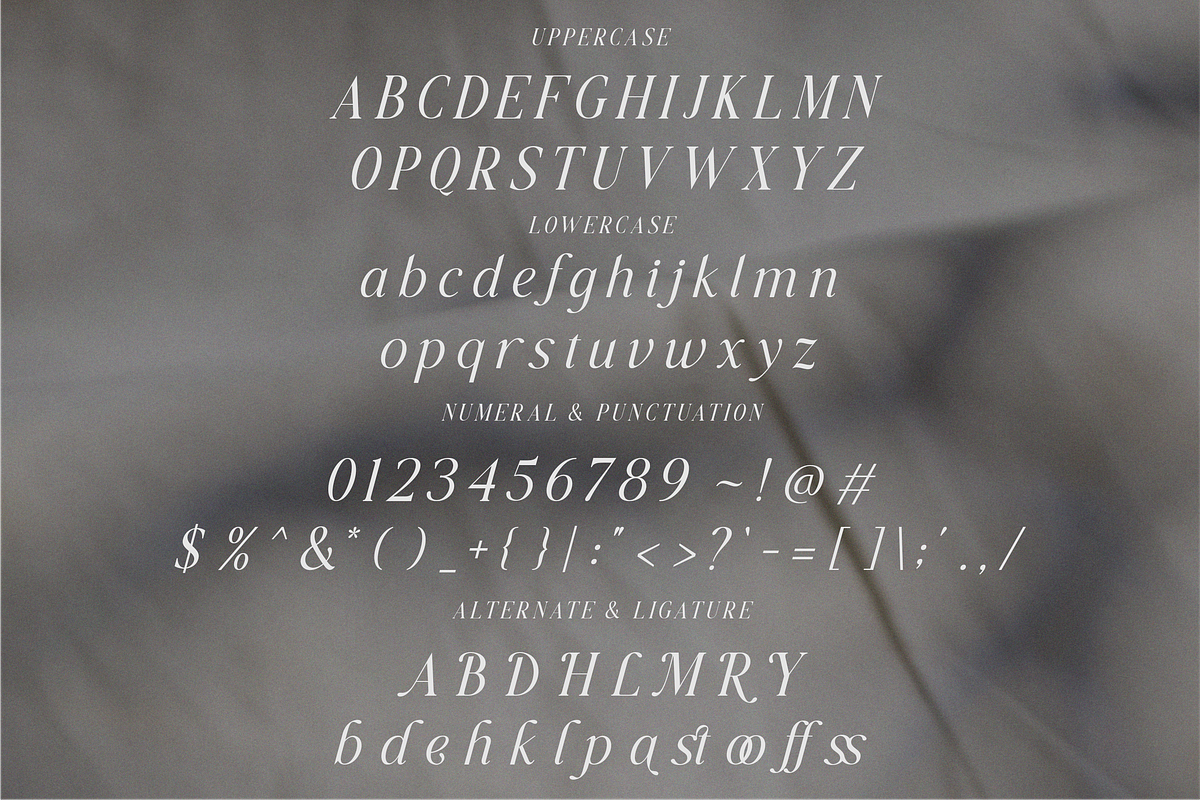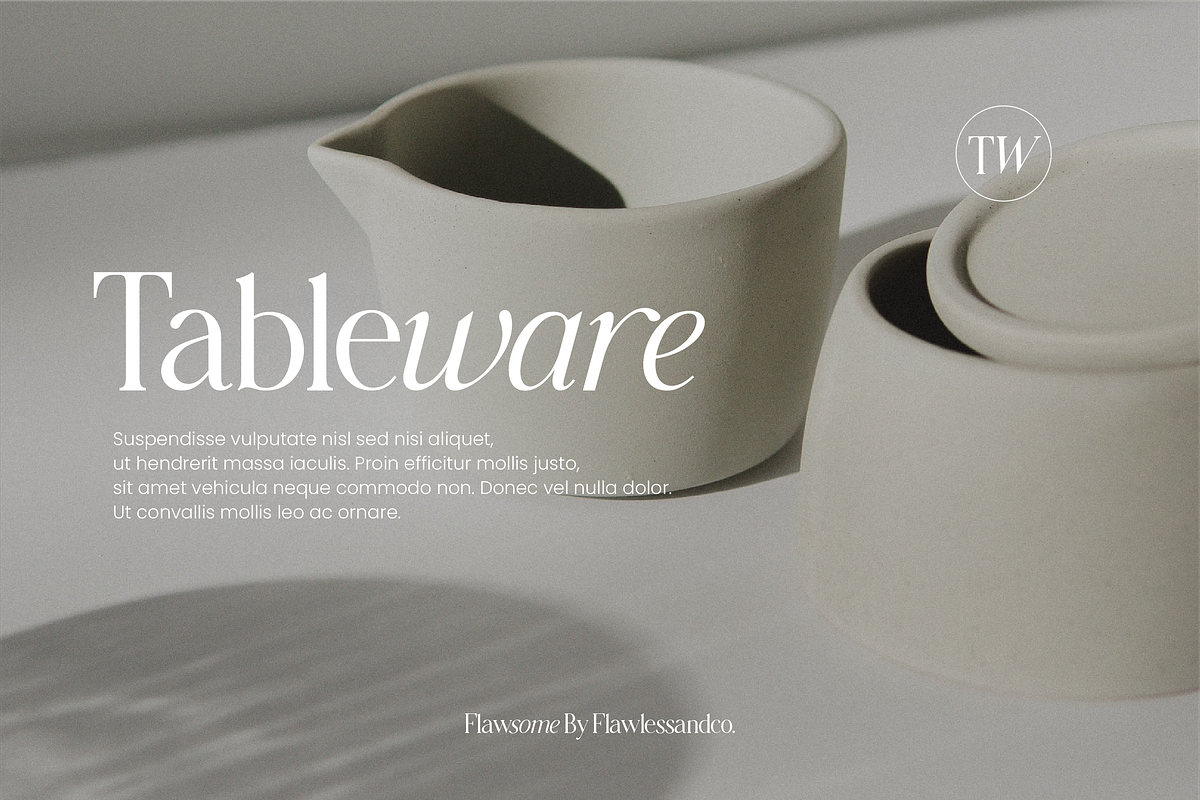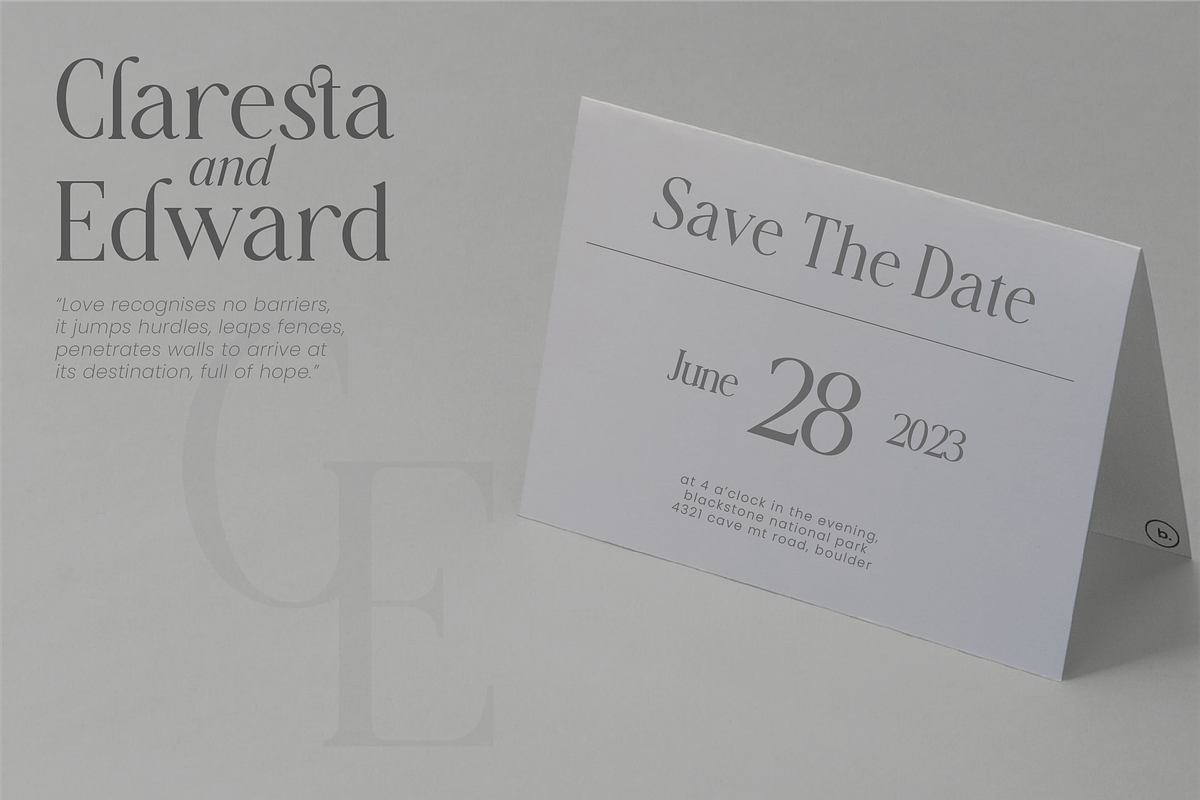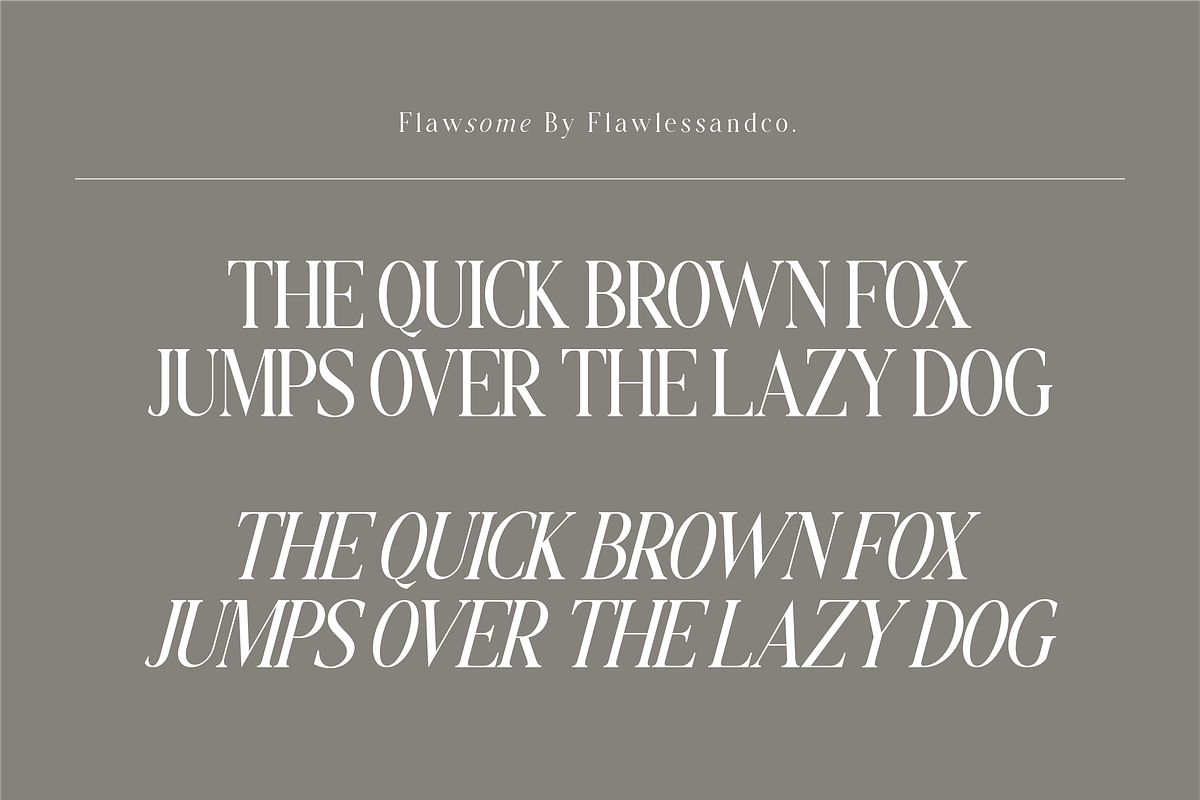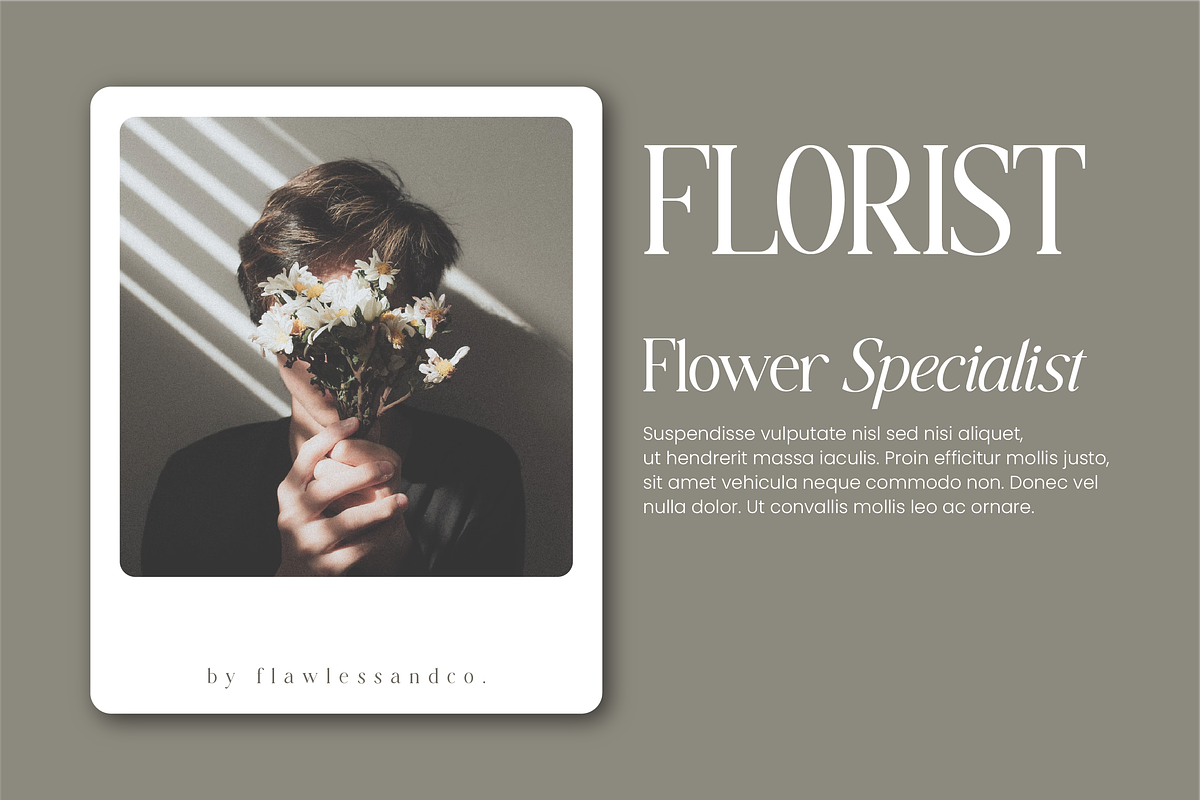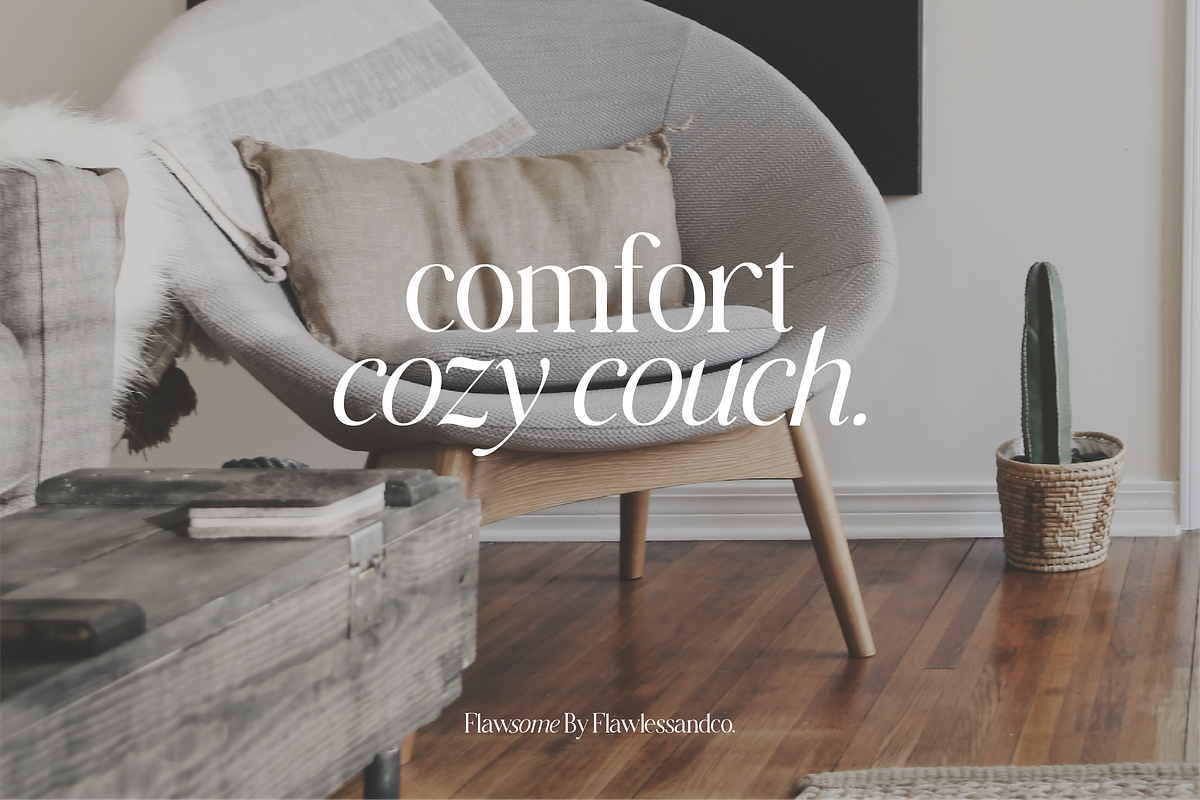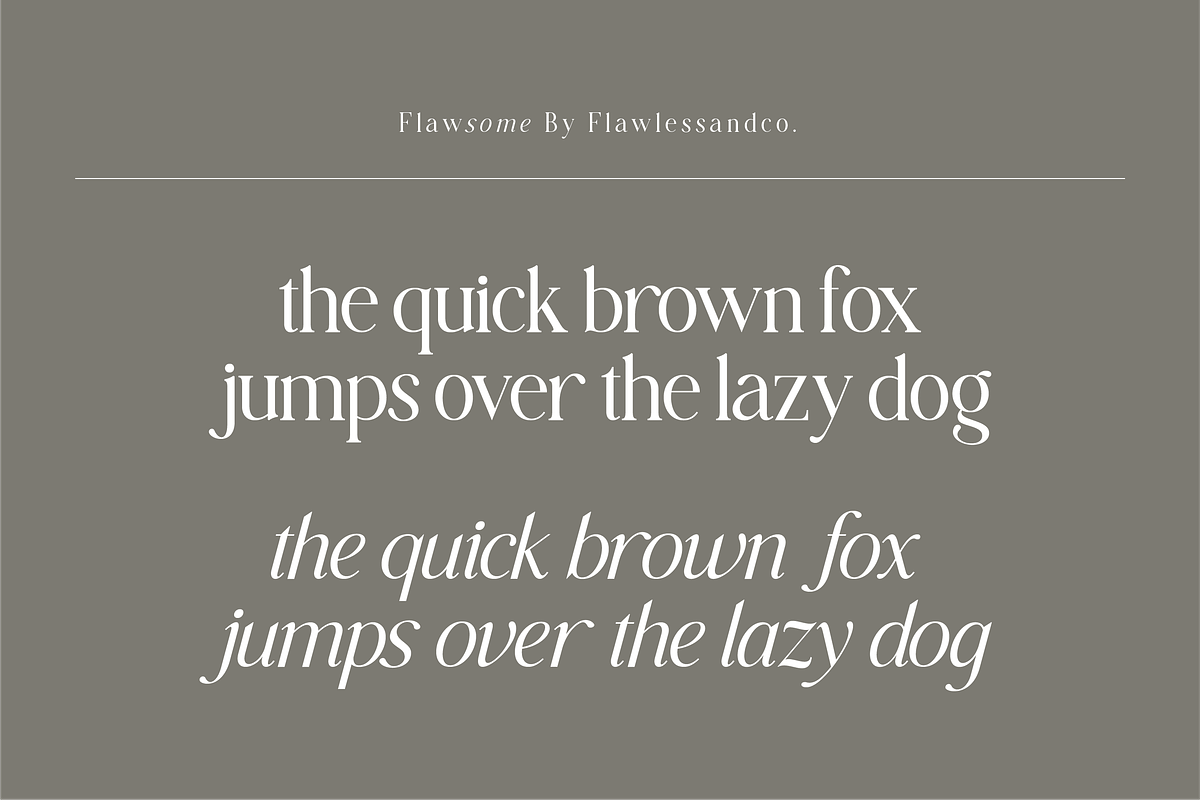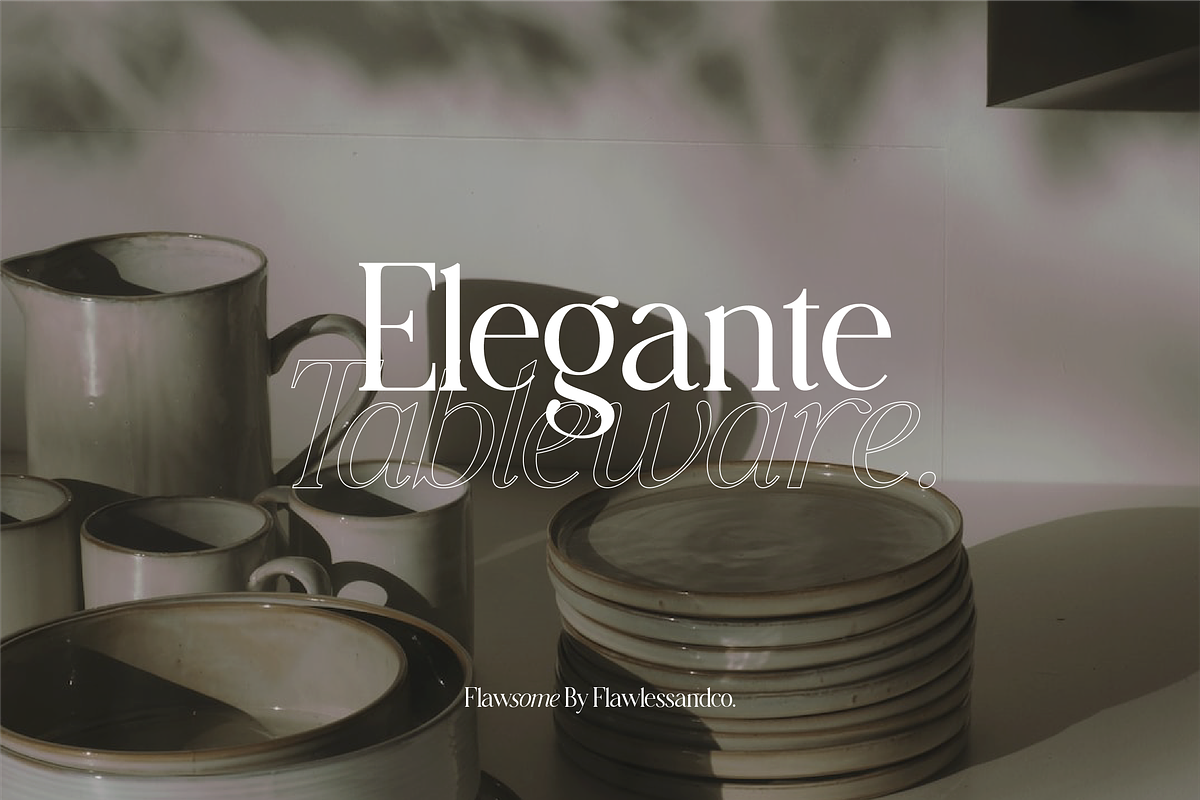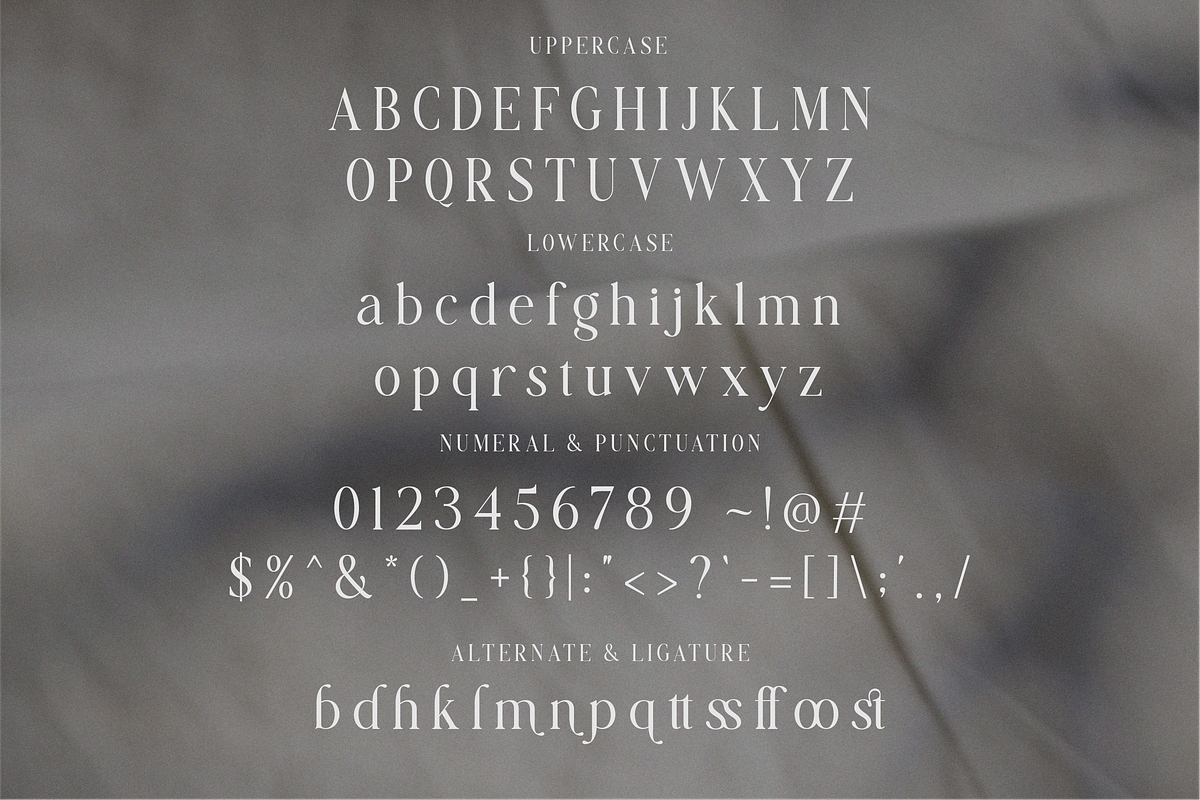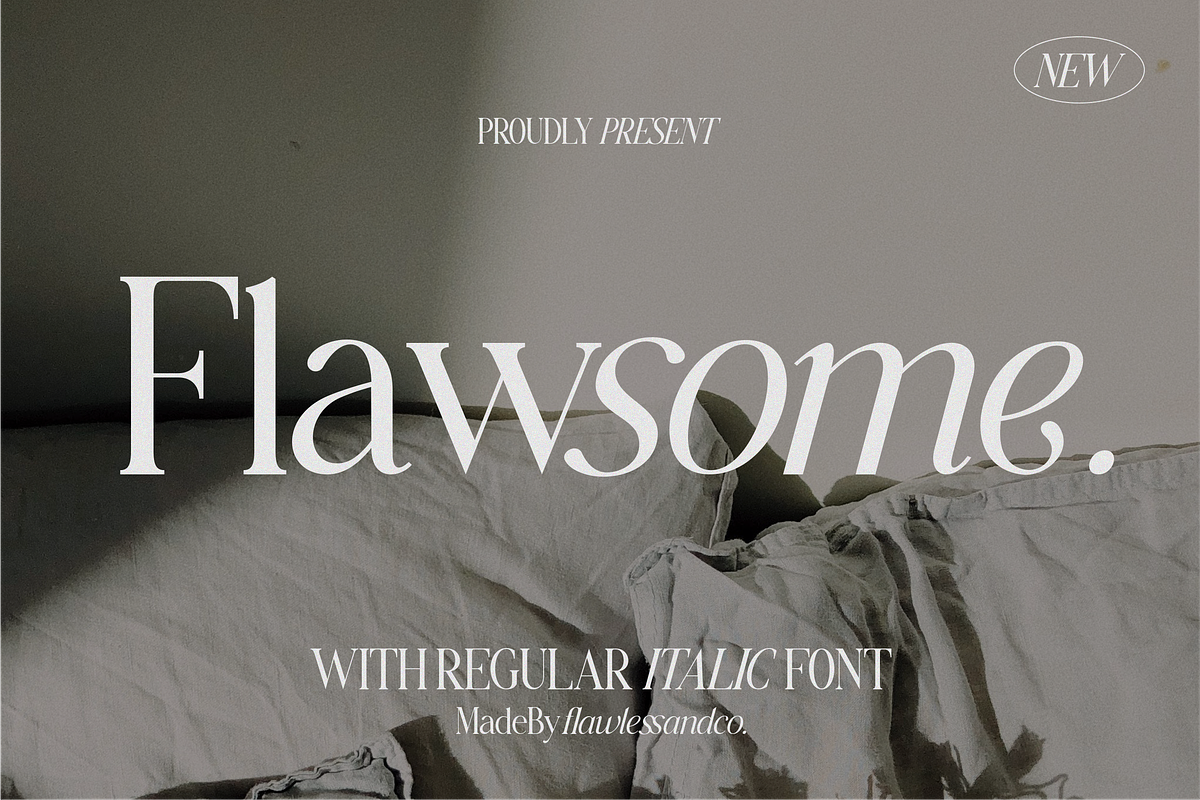
Flawsome Regular Italic
introducing our new Meghan Font, Modern Font with Elegant Style is perfect for branding, logos, invitation, master heads, and more.
Multilingual Uppercase alphabet A-Z Lowercase alphabet a-z Alternate Character Numbers 0-9 Some punctuation